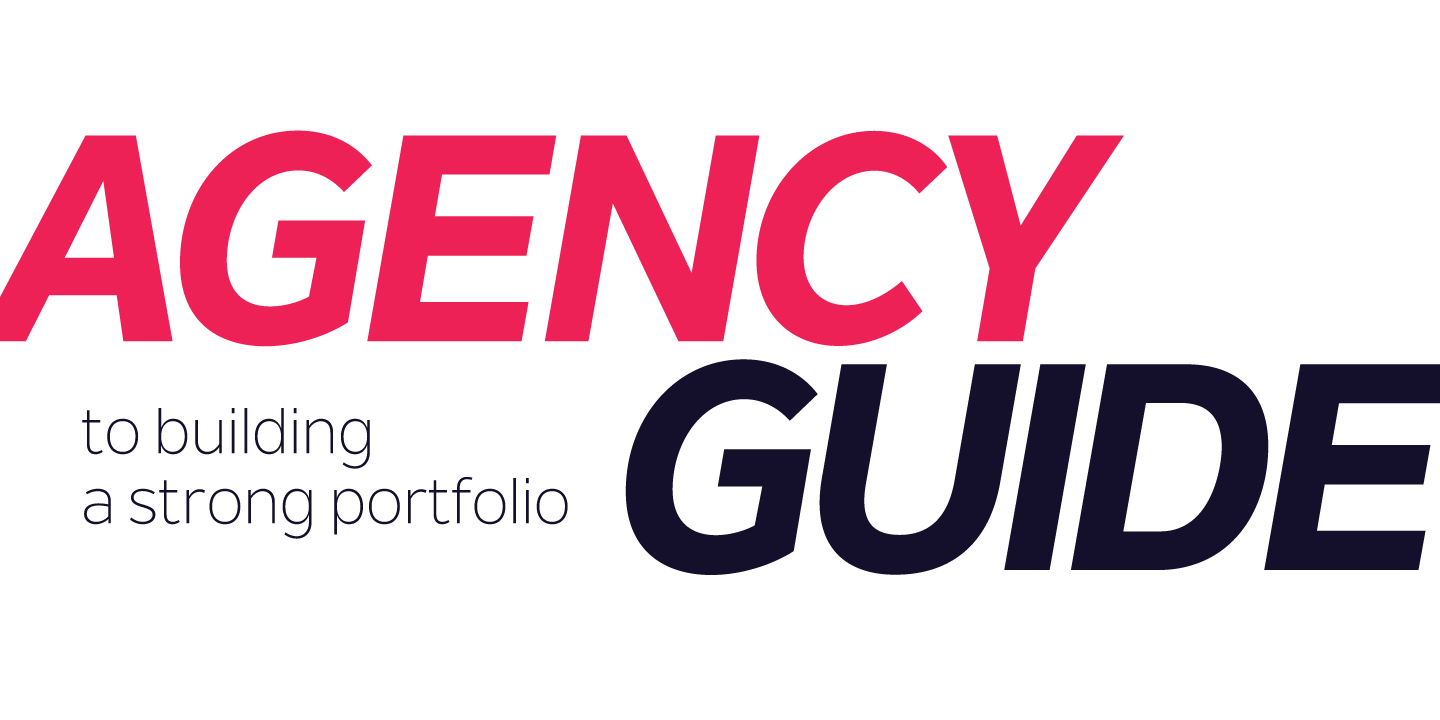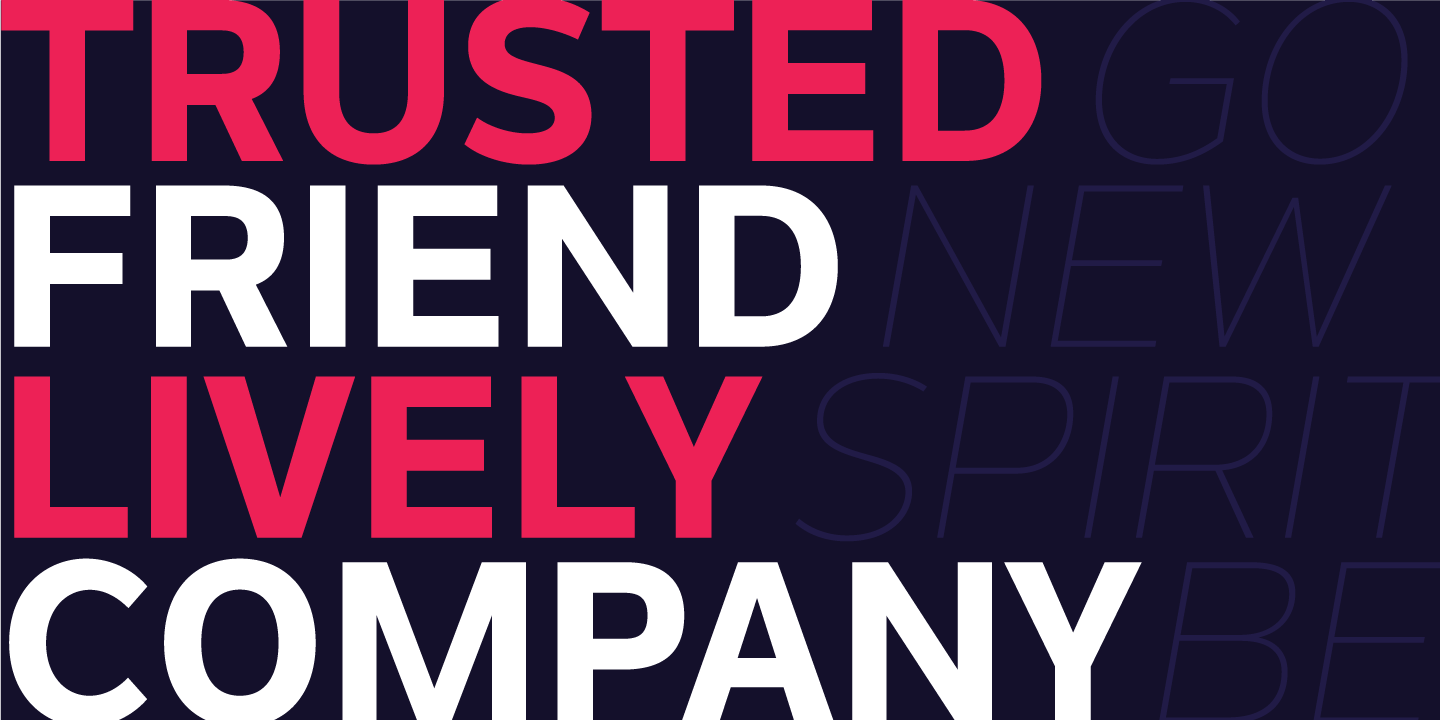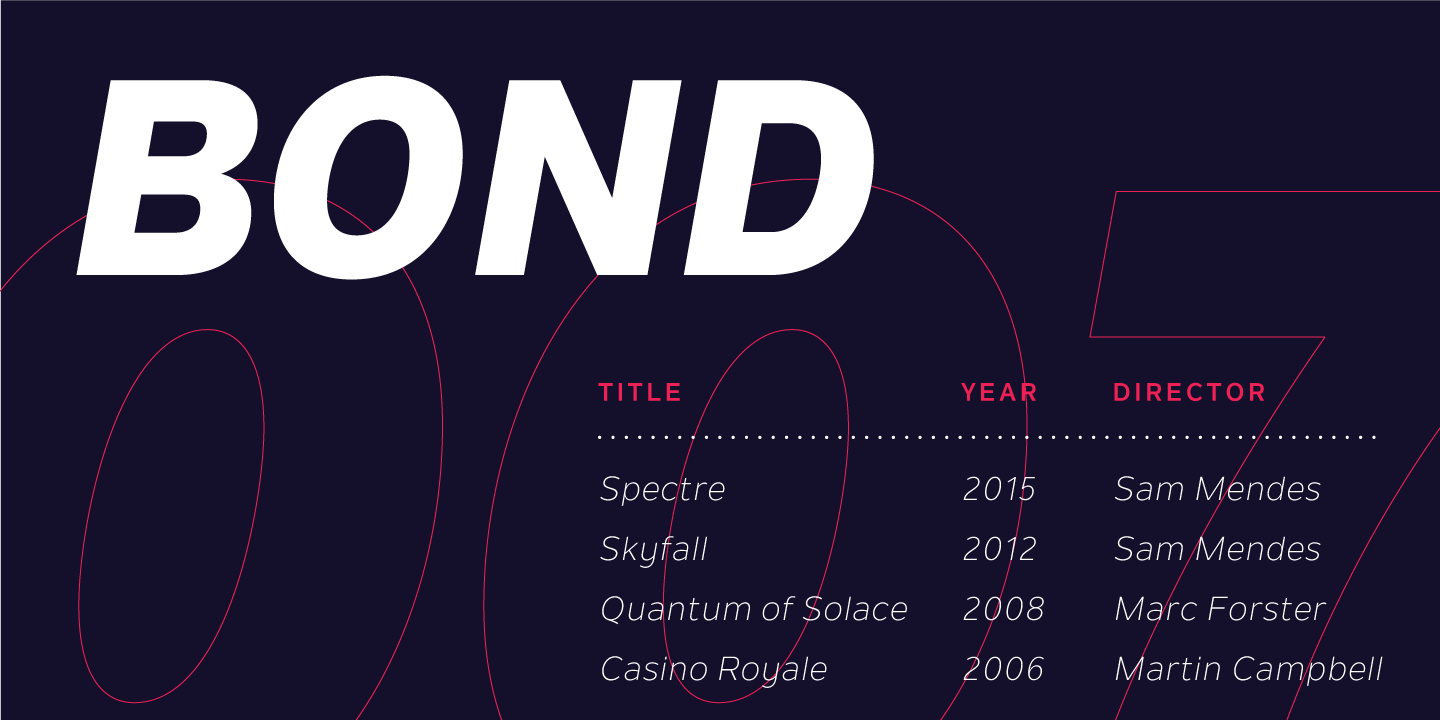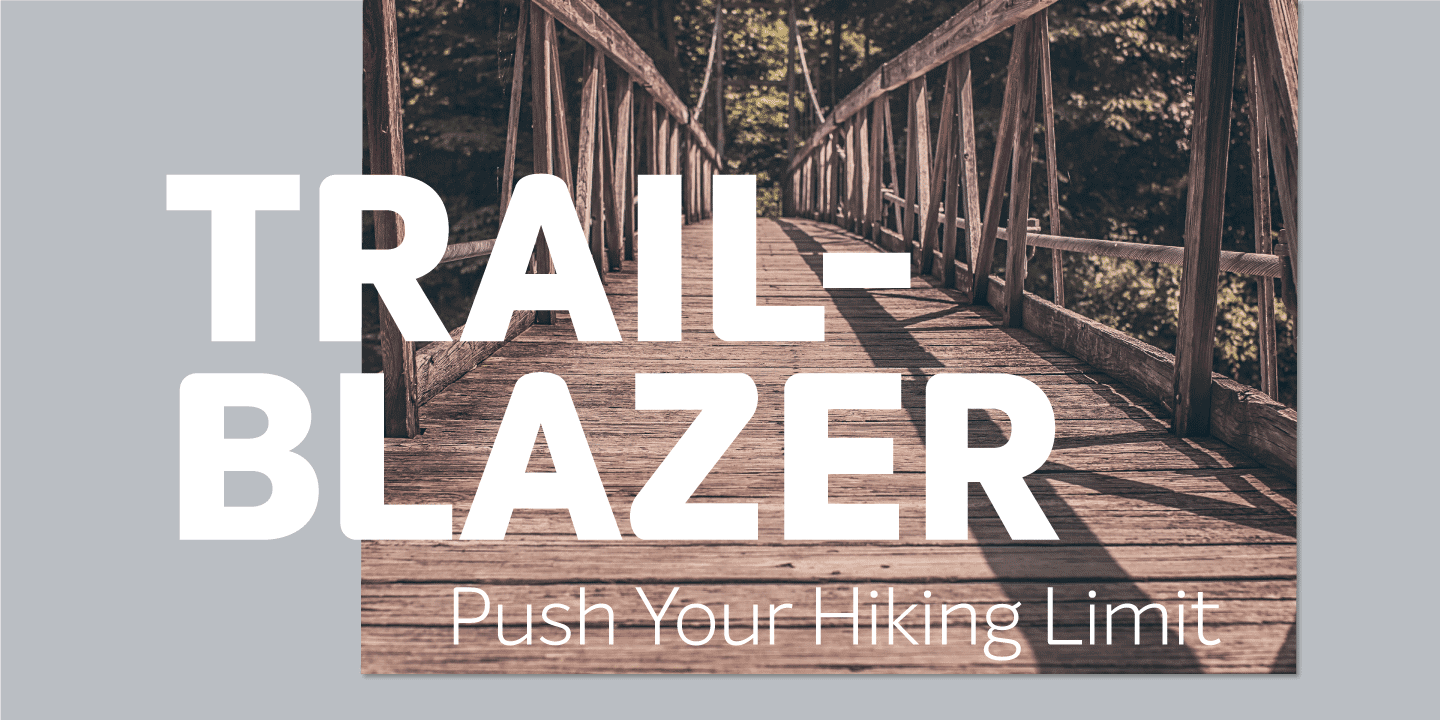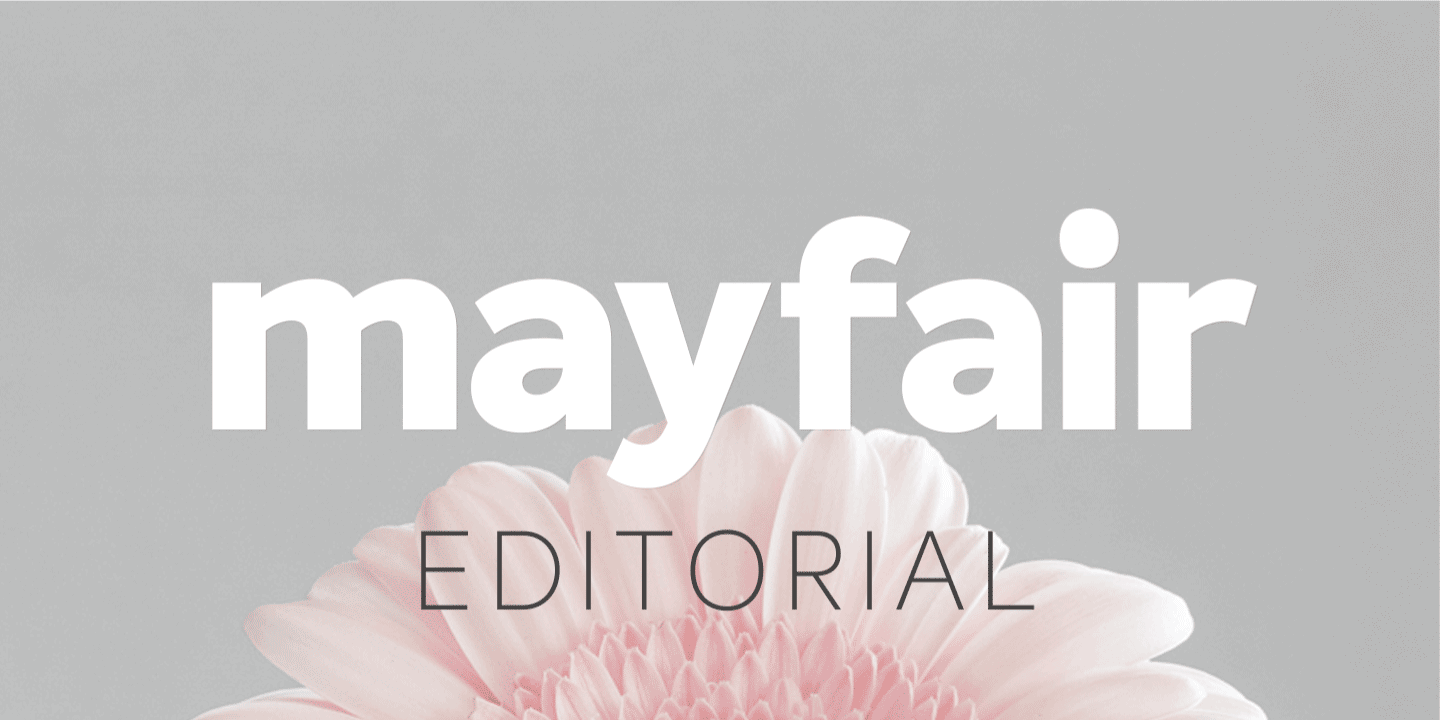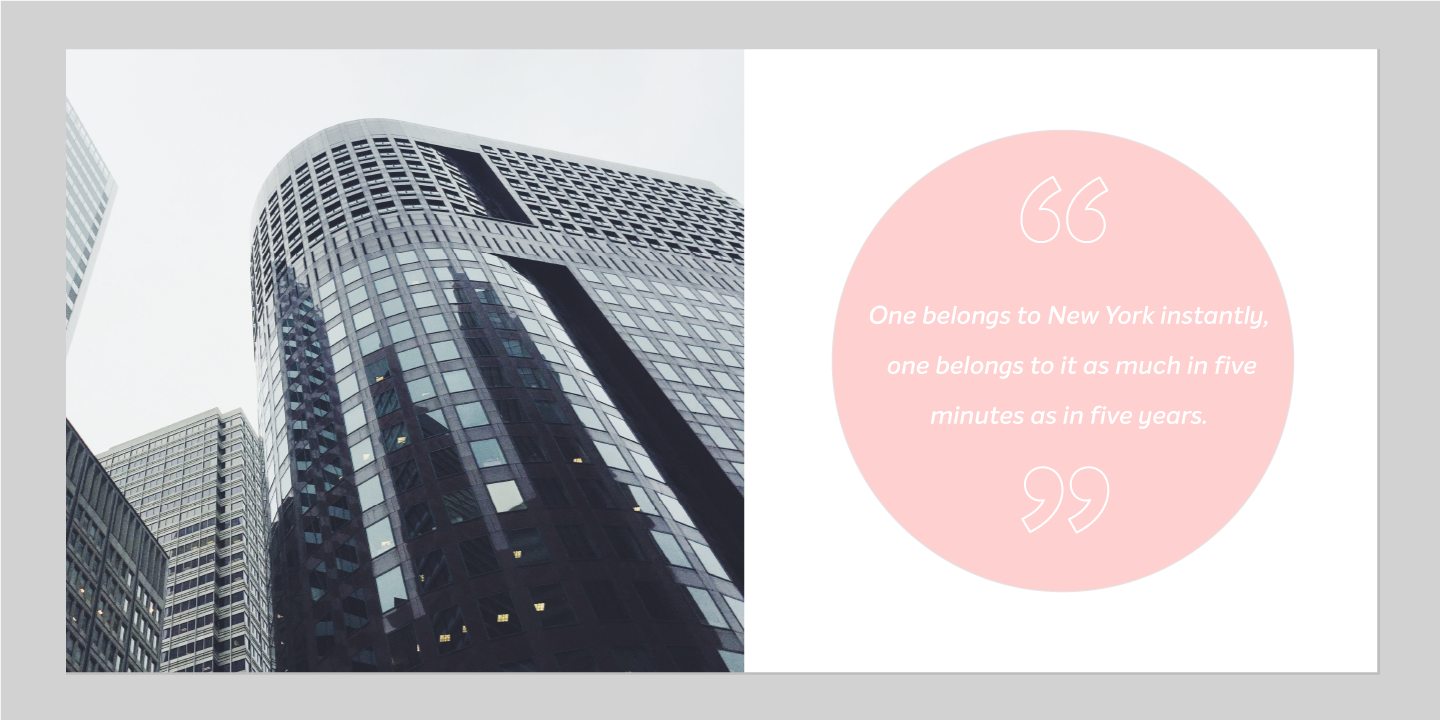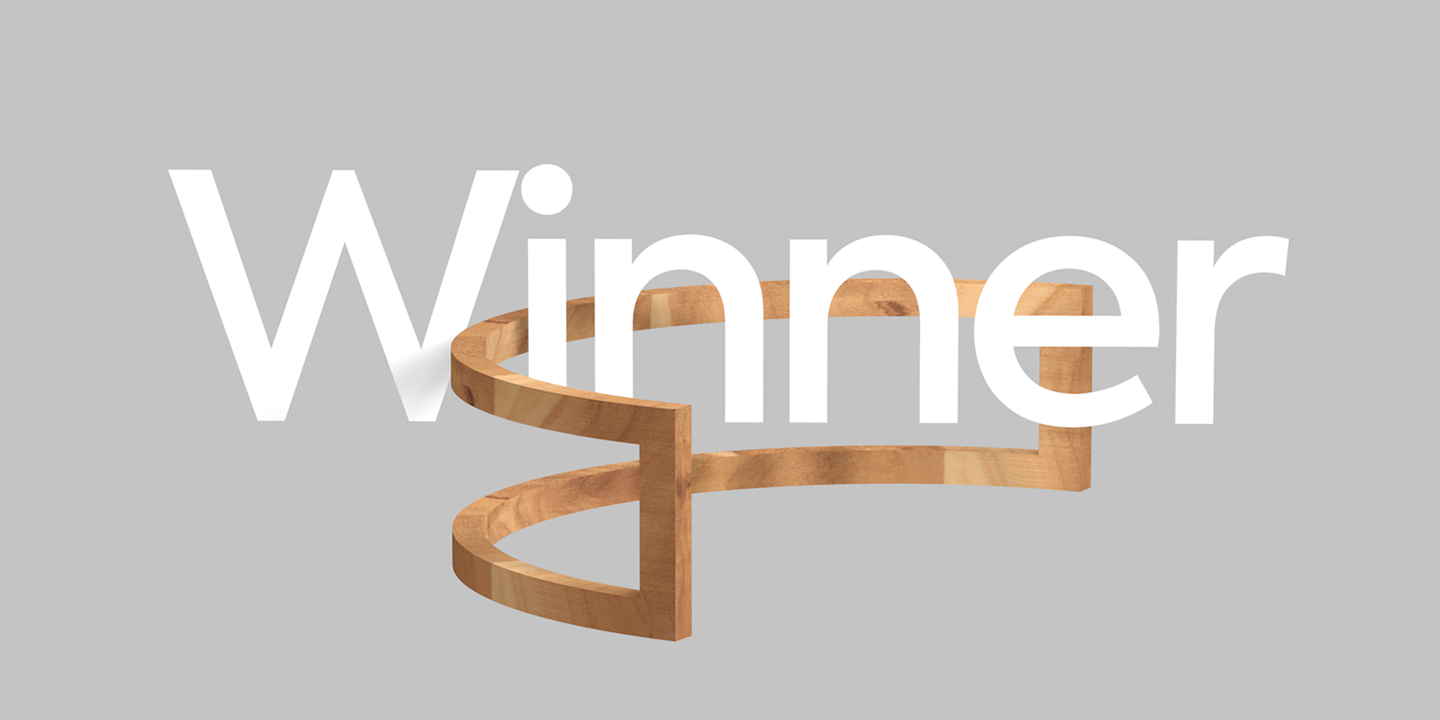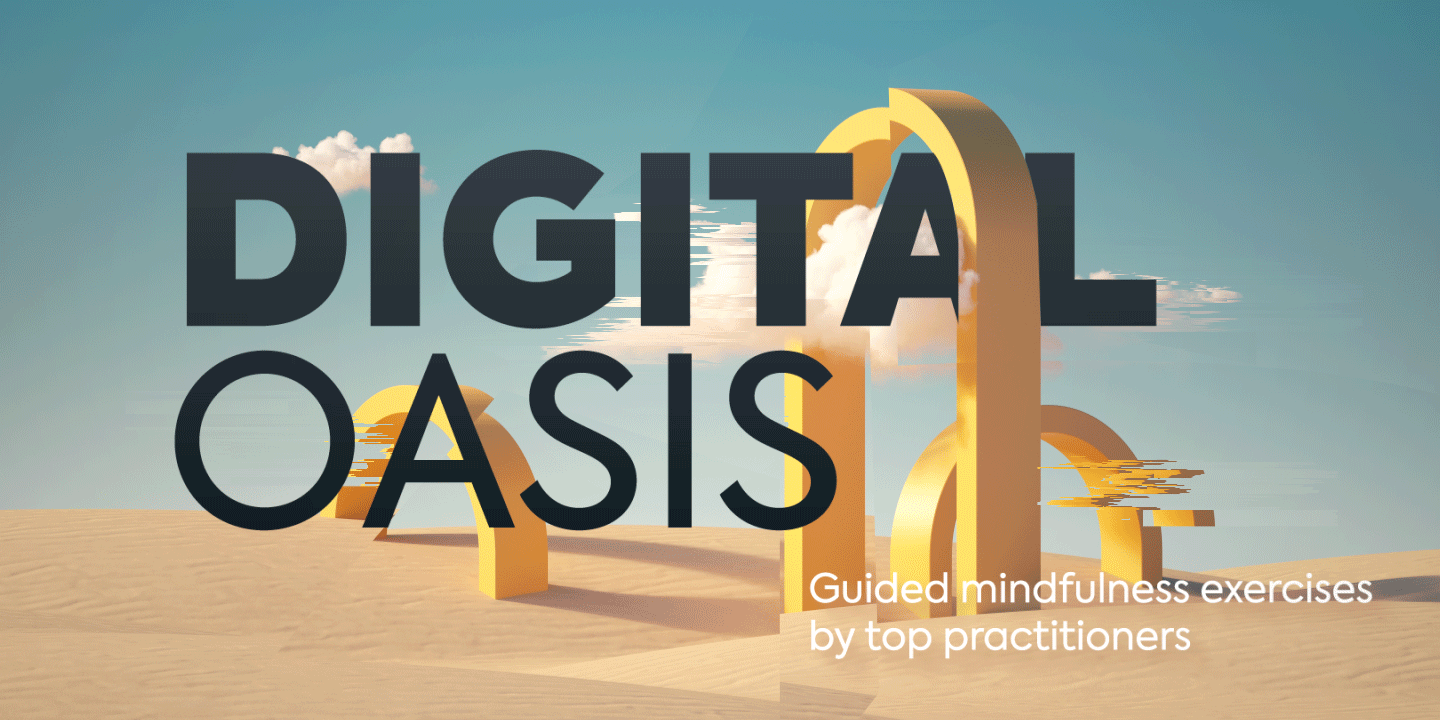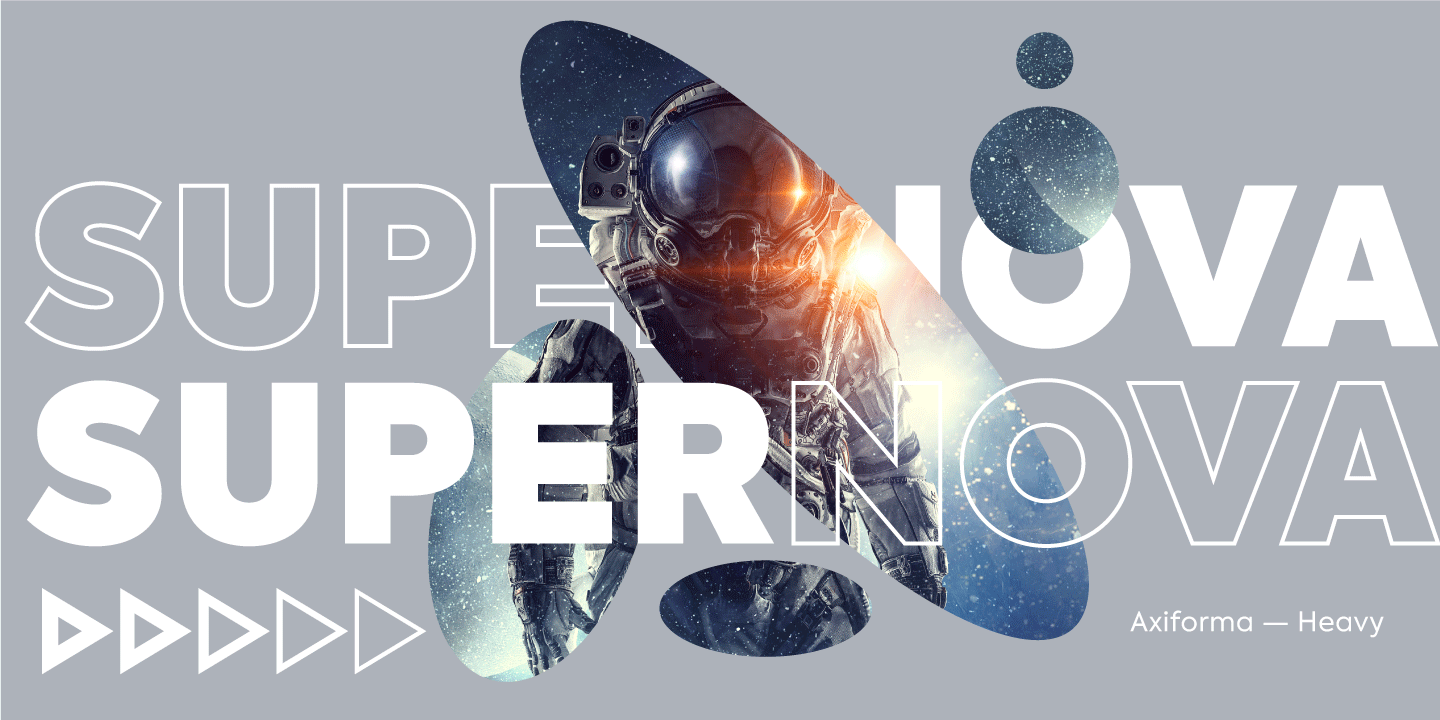
One approach that I try to follow in the work that I do is my strive for subtlety and simplicity. The great Dieter Rams summed this up much better than I can in his phrase “Less, but better”. The catch of course is that this is easier said than done, and it requires you to be more attentive and strategic about what is essential and what is not.
Axiforma was designed with the single idea of creating a font that starts with the letter A, because let’s face it, this is the best letter. For those of you who didn’t see it coming, Axiforma is a /drum roll/ geometric sans in 20 weights. If you are thinking “Oh boy, another geometric sans”, you clearly know your stuff. Yet, Axiforma is different in at least three crucial ways: 1) It’s made by me 2) It’s not free 3) It’s polite and humble Additionally, Axiforma is packed with Opentype such as oldstyle numbers, fractions, case sensitive alternates, localized forms, stylistic sets, cyrillic alphabets (Bulgarian & Russian) and many more. Basically it’s quite extensive and kinda great. Upon using Axiforma, clients will start to behave differently around you and may even start paying you. Your spouse will start working out again just to gain your attention and your kid will become instantly popular at school. After all you are using Axiforma and rumors do spread quickly. That’s what we are talking about - raw font power. With Axiforma regular typed text is suddently transformed into first class design. That includes branding, posters, headlines, display, presentation materials, websites, logotypes, etc. The world will now be your playground. To sum it up, Axiforma is badass, thus you should have it and use it everywhere.
Nolan Next is a low-contrast humanist sans-serif with a large x-height and streamlined appearance. It is based on Nolan, but with a more compact letterforms and remastered curves. Designed to appeal to a broader audience due to its narrower width and subtle presence, Nolan Next is ideal for everyday usage. It is well suited for design applications ranging from branding and corporate identity to editorial and web design. Comprising of eight weights with matching italics, Nolan Next is easy to work with and accommodating to your needs. Designed to work as a universal typeface, it also stands its ground in headlines, presentation materials, logotypes, etc. Additionally, the typeface includes an extended character set supporting an array of languages.
Intelo was created with the single idea of redefining what makes a functional grotesque typeface nowadays. Its large x-height and letterforms with subtle elliptical finish create a distinctive look that can help brands cater to an increasingly design savvy audience. To top it off, Intelo comes in two versions - an attention-grabbing original cut and an additional version with flat endings for a more streamlined effect. The family weights range from thin to extrabold with matching italics making it a versatile choice and perfectly suited for digital applications including web and interaction design as well as printed media such as editorial and corporate materials. When it comes to Opentype features, Intelo is loaded with stylistic alternates, tabular figures, fractions, ligatures, and more. In addition, the font family has an extended language support featuring Western, Eastern and Central European languages. To sum it up, the friendly and inviting letterforms of Intelo came as a solution to the need for more human fonts in our technology-oriented environment.
The other concept is that of the ‘golden mean’, first coined by Aristotle to judge and evaluate character in the people around us, but also applicable to producing any work of consistent value. In people, qualities such as courage, liberality, friendliness, wittiness and modesty are incidentally all attributes that a good typeface should posses. I find this relation both daunting and intriguing, but also a good base for exploring and developing typefaces that are timeless and universally appealing.
Type Designer
Galin Kastelov
Bulgarian type designer now based in London. Typefaces from 2015: Nolan Next, Nolan (a wide-eyed headline and display sans family). Typefaces from 2016: Intelo (a useful grotesque typeface family for scientific and technical publications). Typefaces from 2017: Axiforma (a large geometric sans typeface family that covers Latin, Cyrillic and Bulgarian Cyrillic).